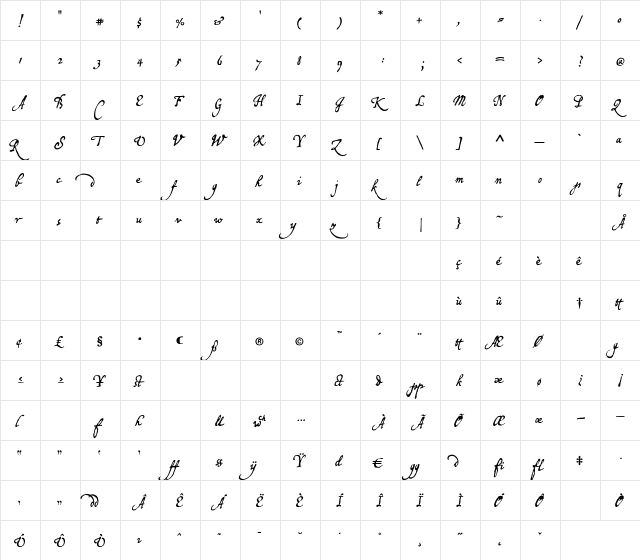
P22Broadwindsor Regular Font Preview
P22Broadwindsor Regular
P22Broadwindsor Regular Font Details
Design Context for P22Broadwindsor Typeface
P22Broadwindsor is a composed and adaptable typeface that performs quietly and consistently across a wide range of design contexts.